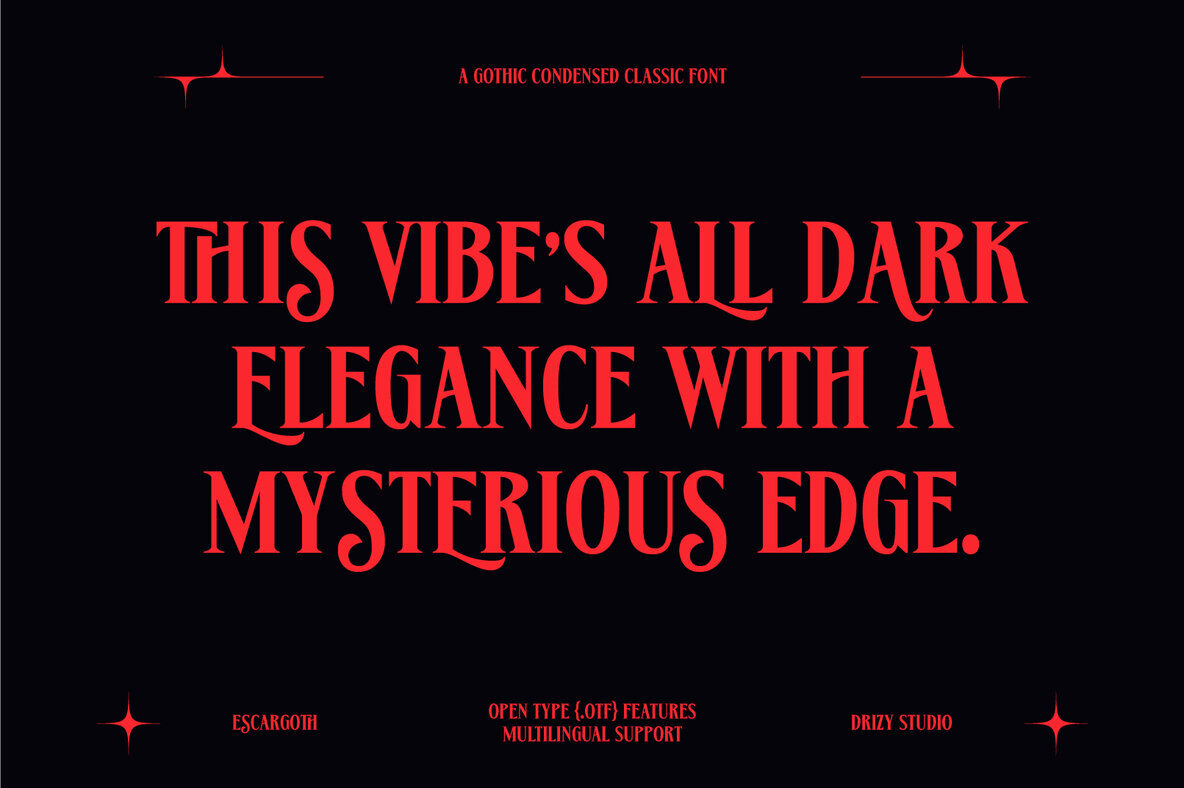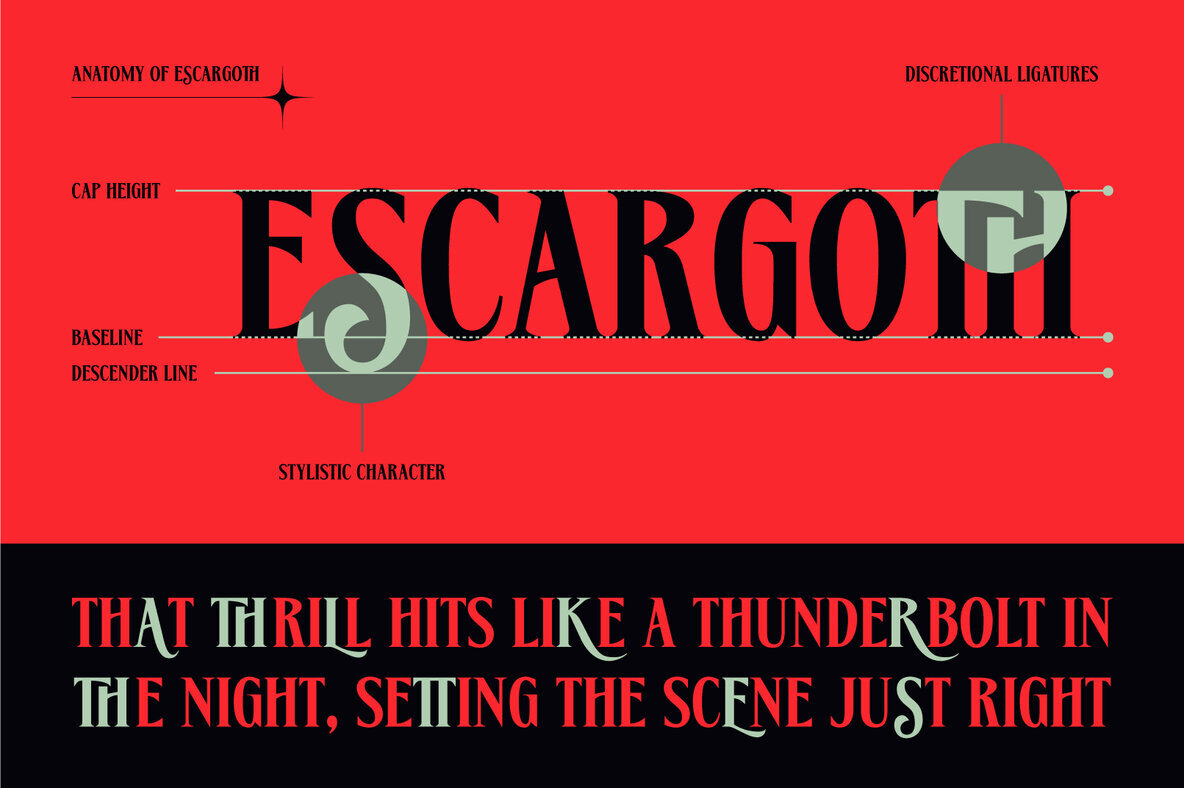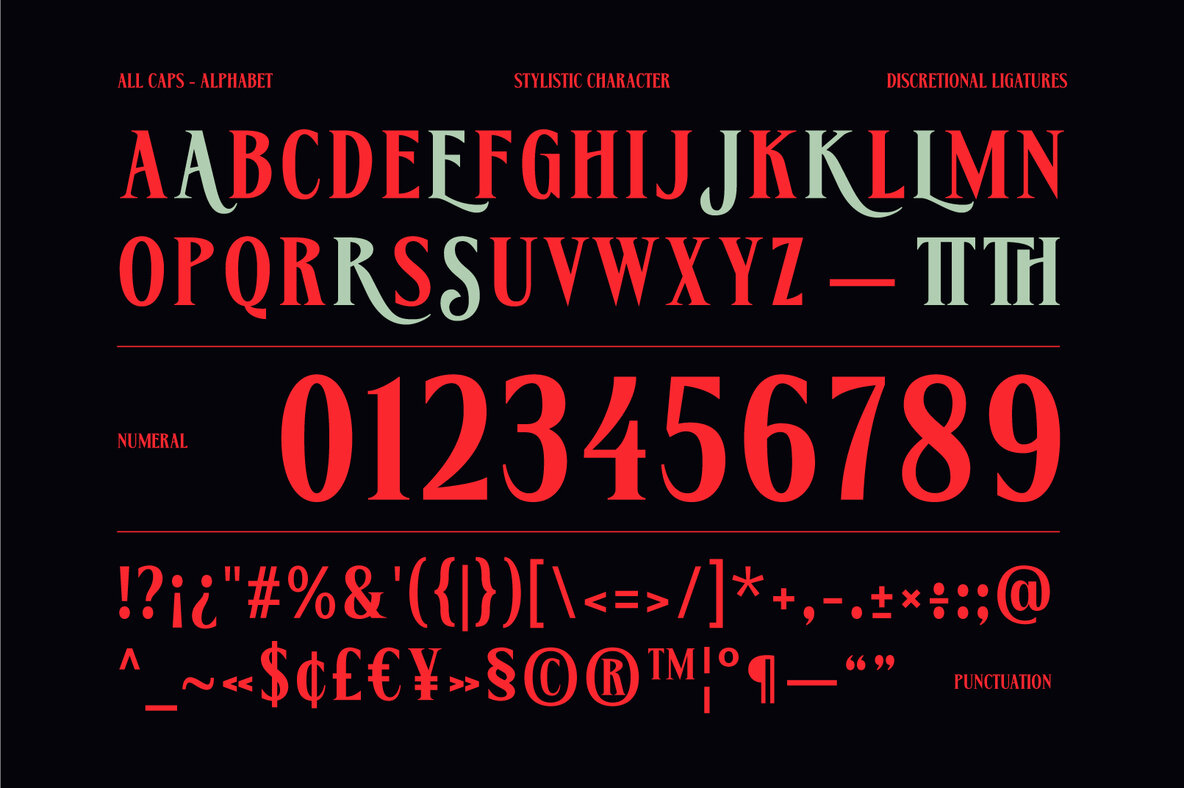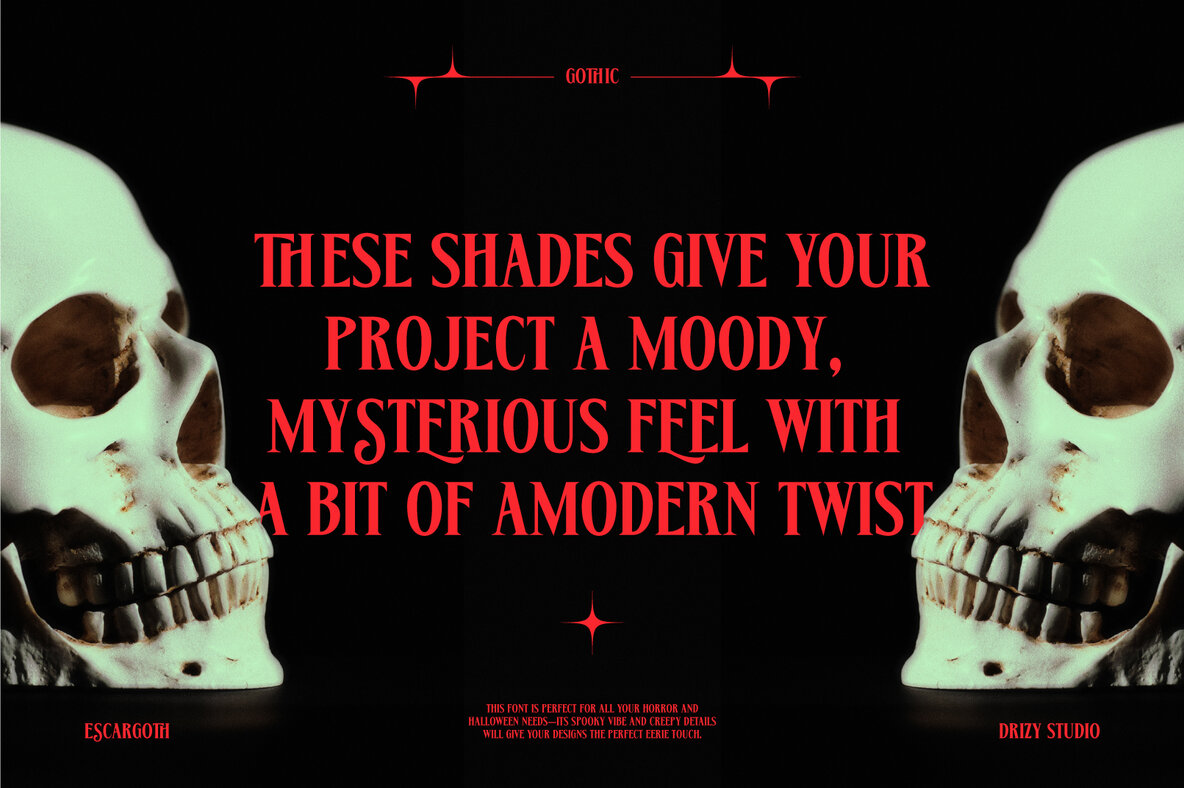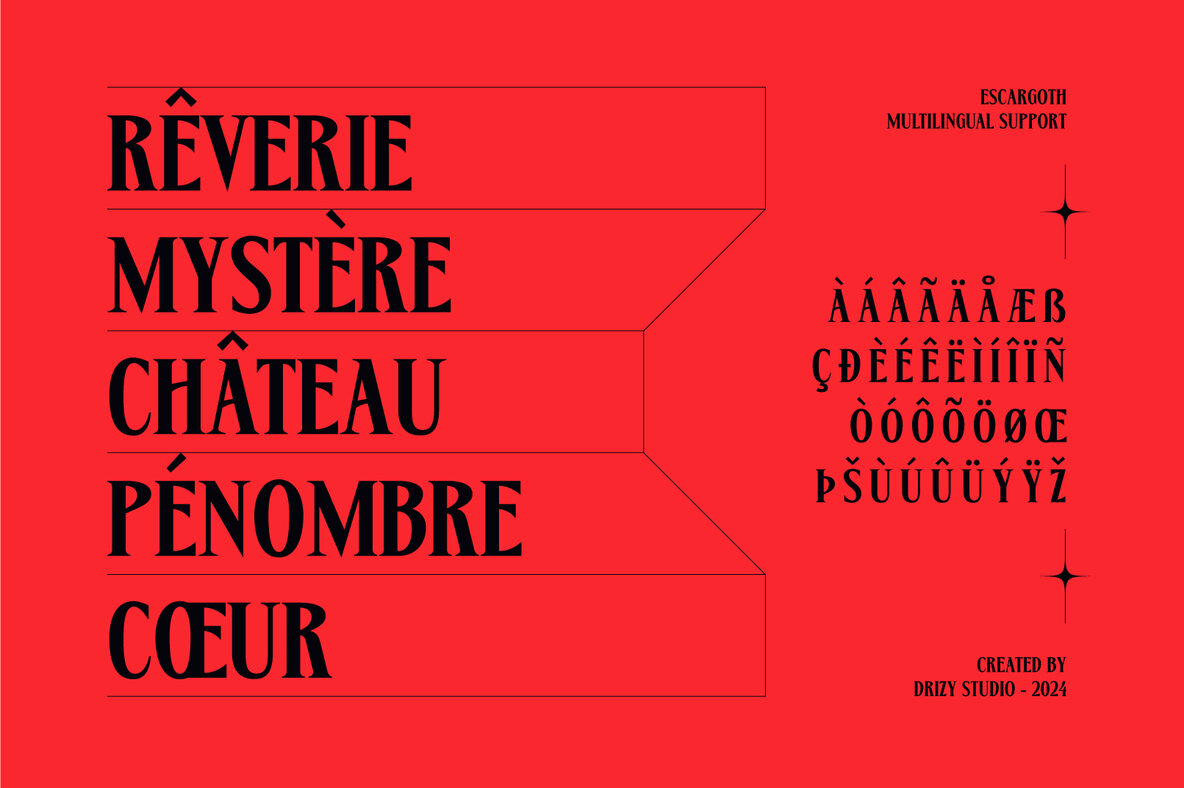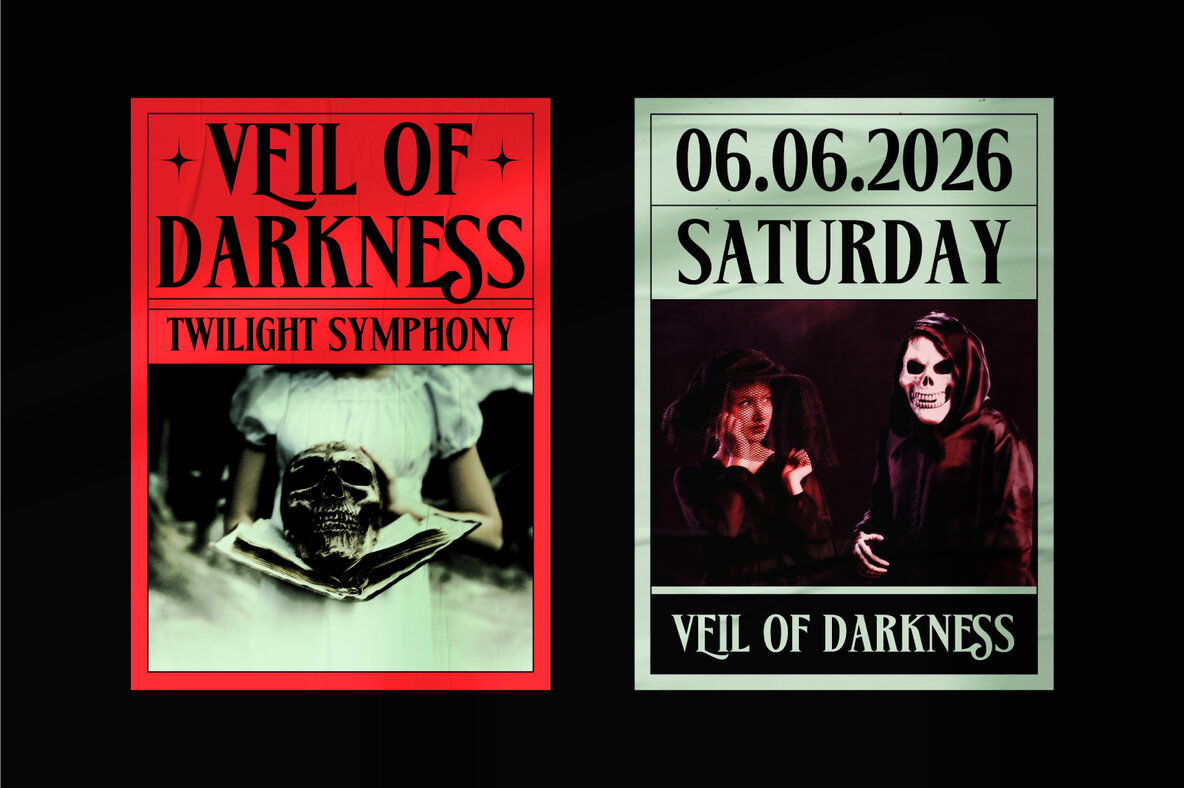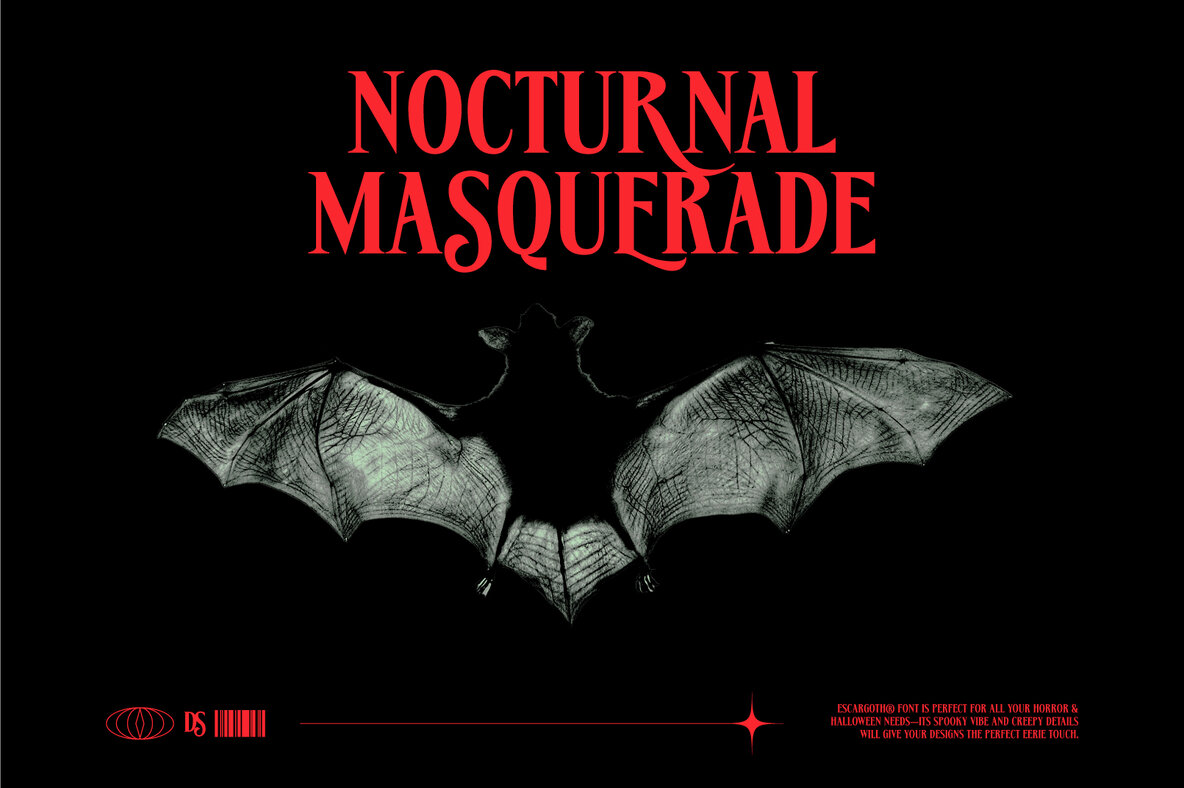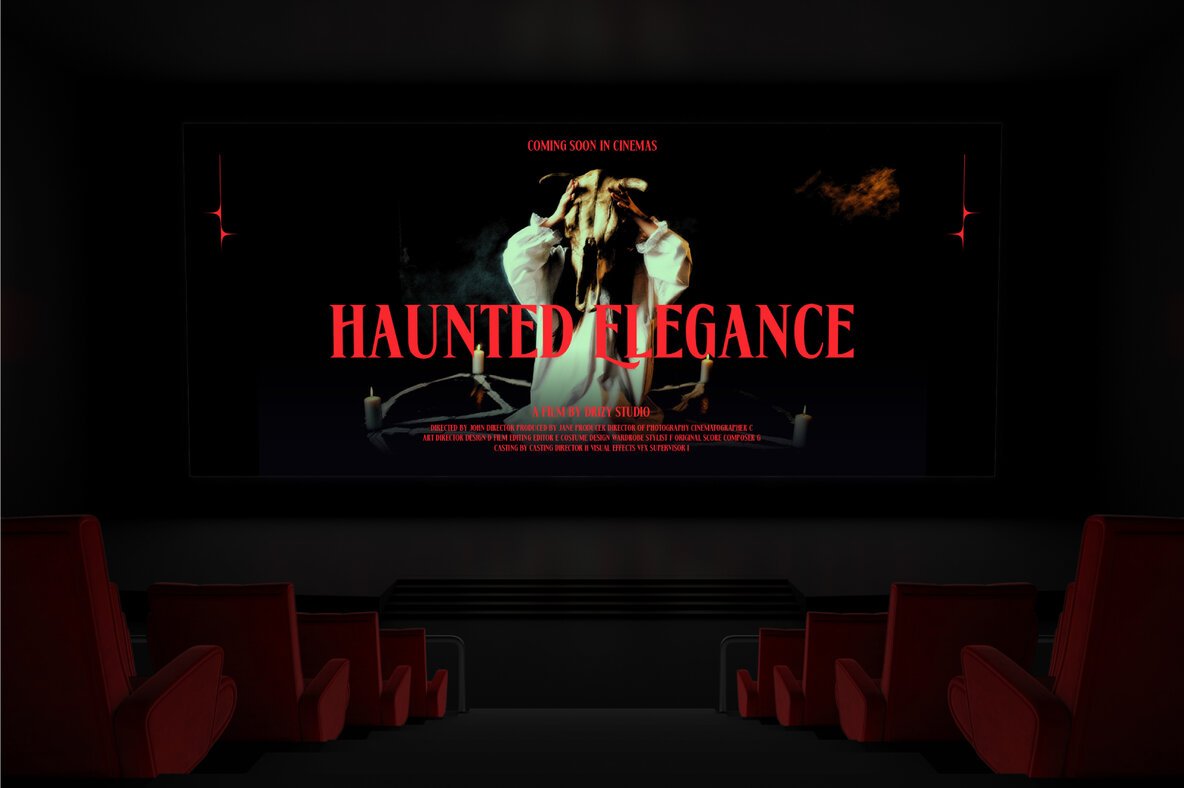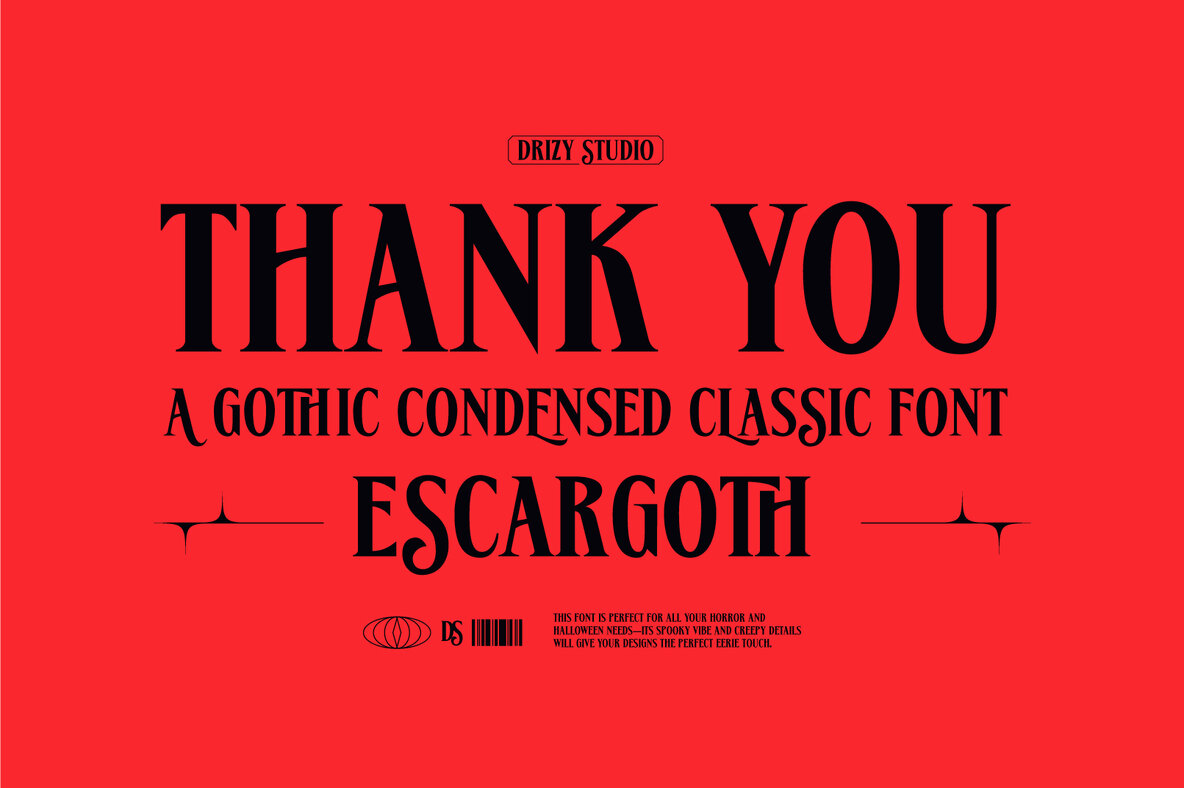
Escargoth Font
Escargoth Regular
Escargoth is a spine-chilling typeface that exudes dark elegance and vintage charm, ideal for your Halloween-themed designs. This font merges the haunting beauty of Gothic script with a condensed, classic structure, perfect for creating eerie titles, ghostly invitations, and spooky branding. The sharp edges and intricate details of Escargoth evoke the mysterious ambiance of old horror films and gothic literature, adding a touch of macabre sophistication to your Halloween projects.
Key features of Escargoth include an all-caps character set, punctuation, numbers, multilingual support, stylistic sets 01 & 02, and discretionary ligatures. Its unique design ensures your creations stand out, capturing the eerie and sophisticated elements necessary for truly captivating Halloween visuals.